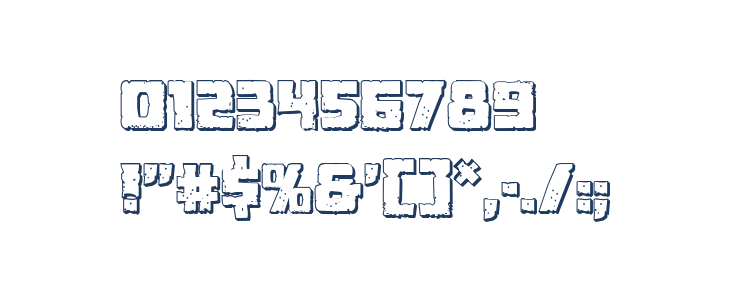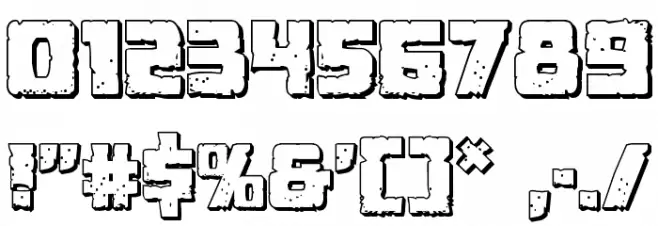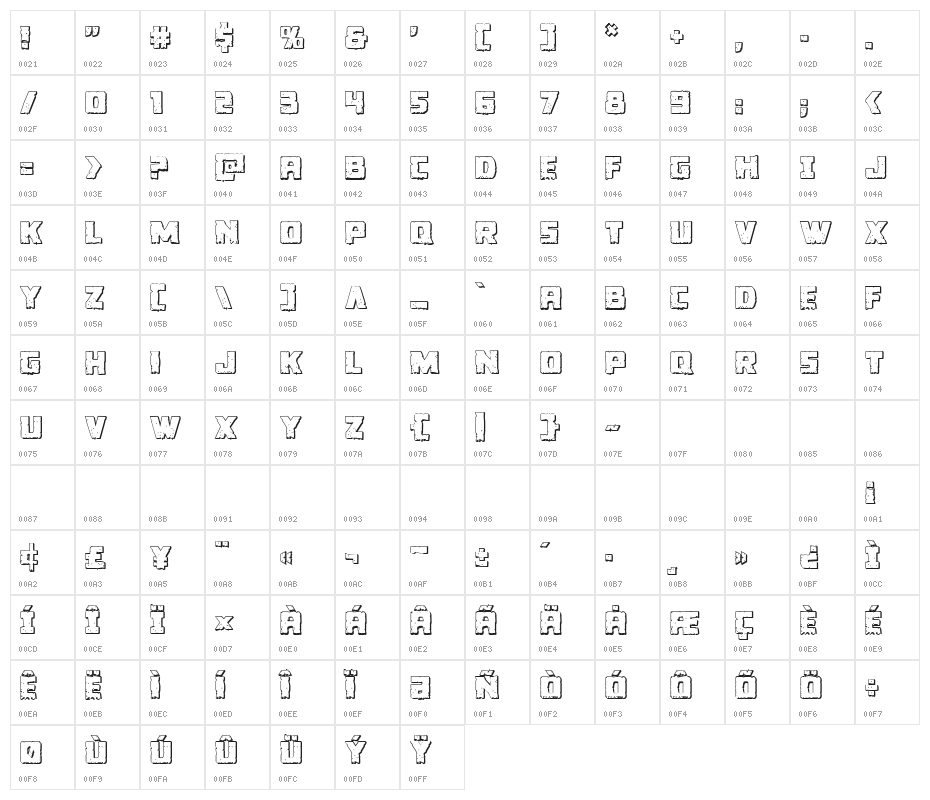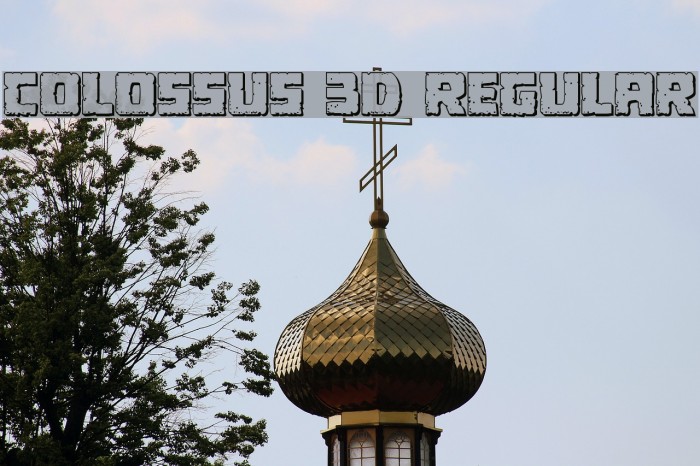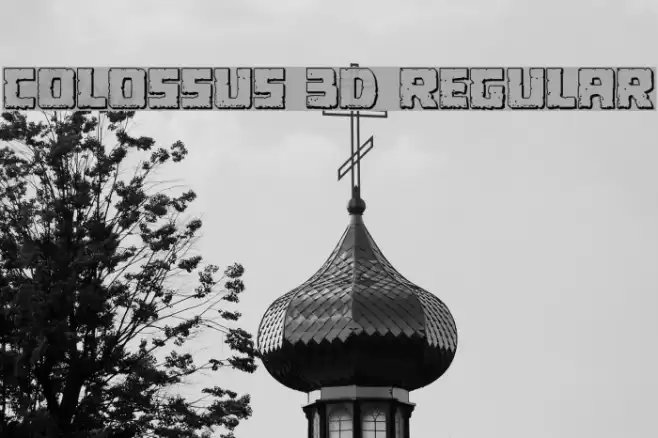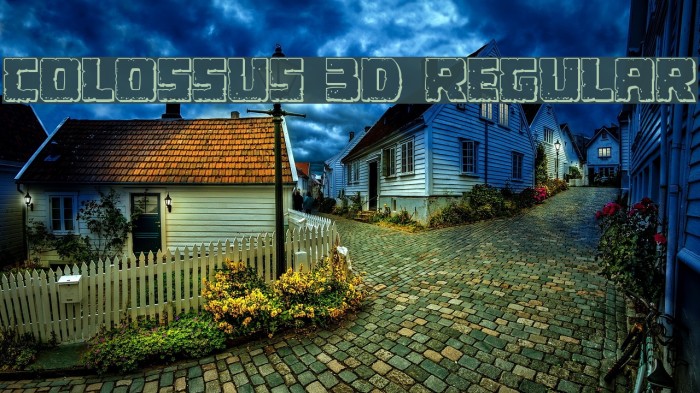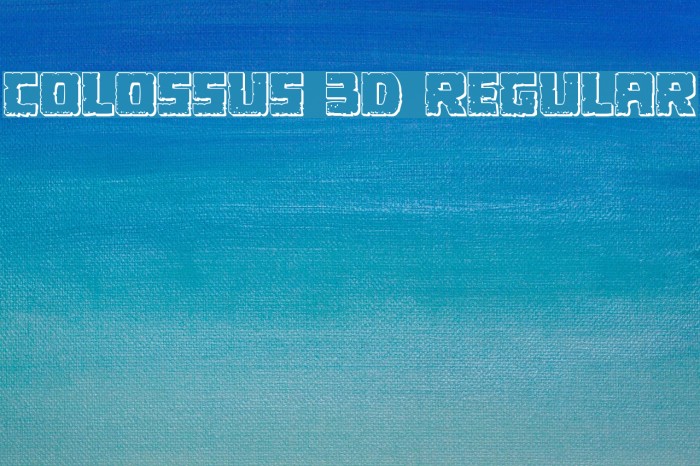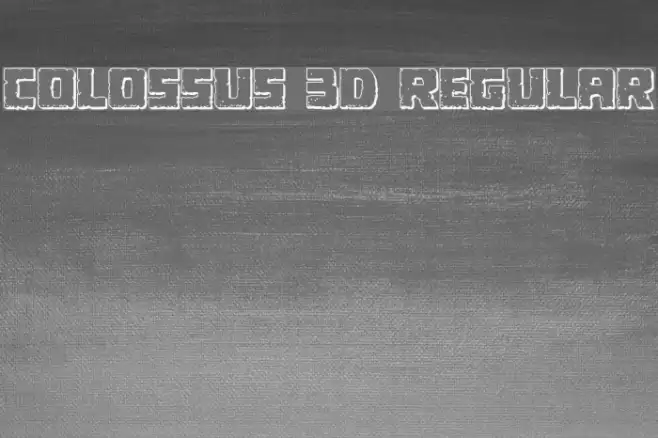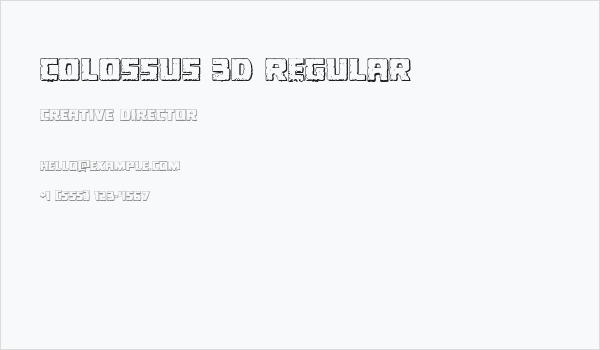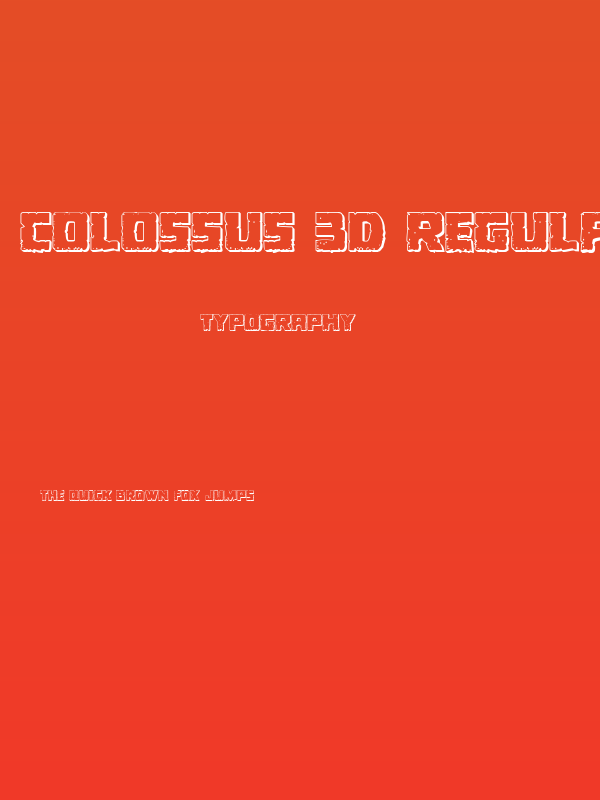
Colossus 3D Regular Font
Colossus 3D Regular Description
This font features a bold, three-dimensional appearance with a rugged texture that gives it a distressed, industrial look. The characters are blocky and substantial, with a strong presence that makes them stand out. The edges are slightly rough, adding to the worn, vintage feel. The 3D effect is achieved through shading and highlights, creating a sense of depth and solidity. This font is ideal for designs that require a bold statement, such as posters, headlines, or branding materials. Its unique style can add a touch of character and personality to any project.